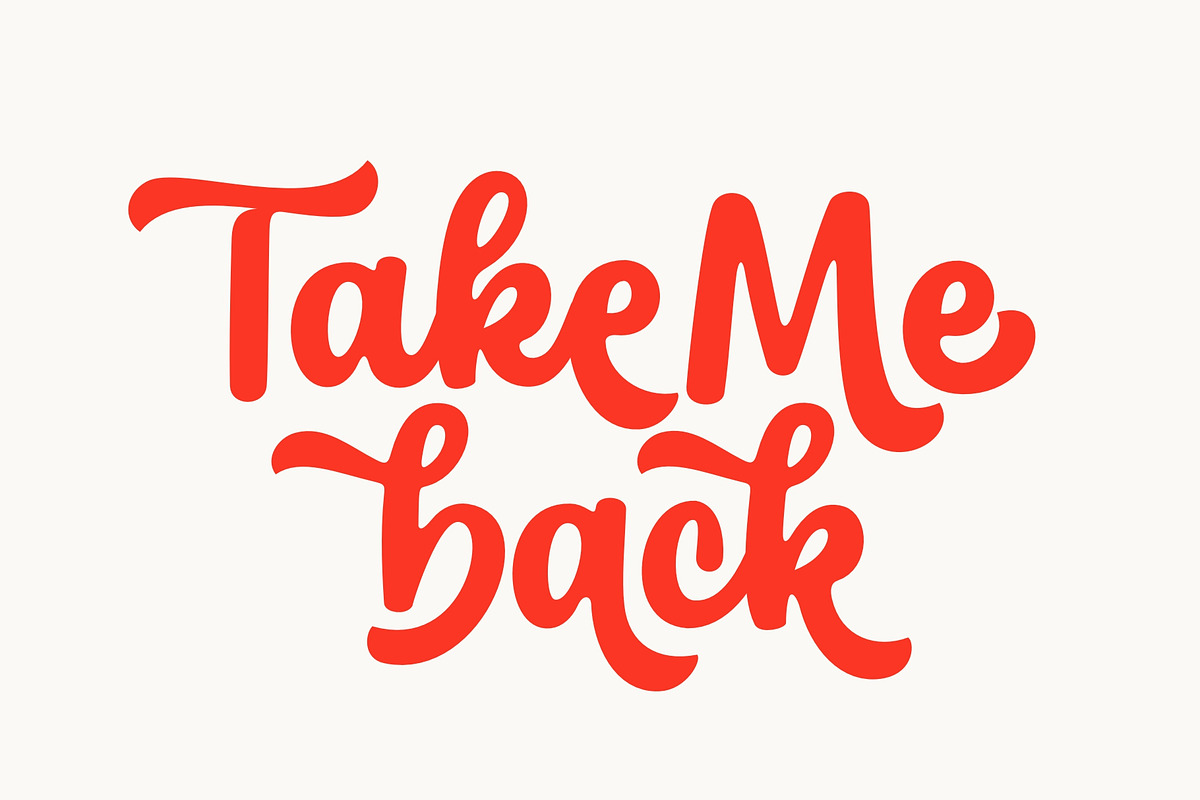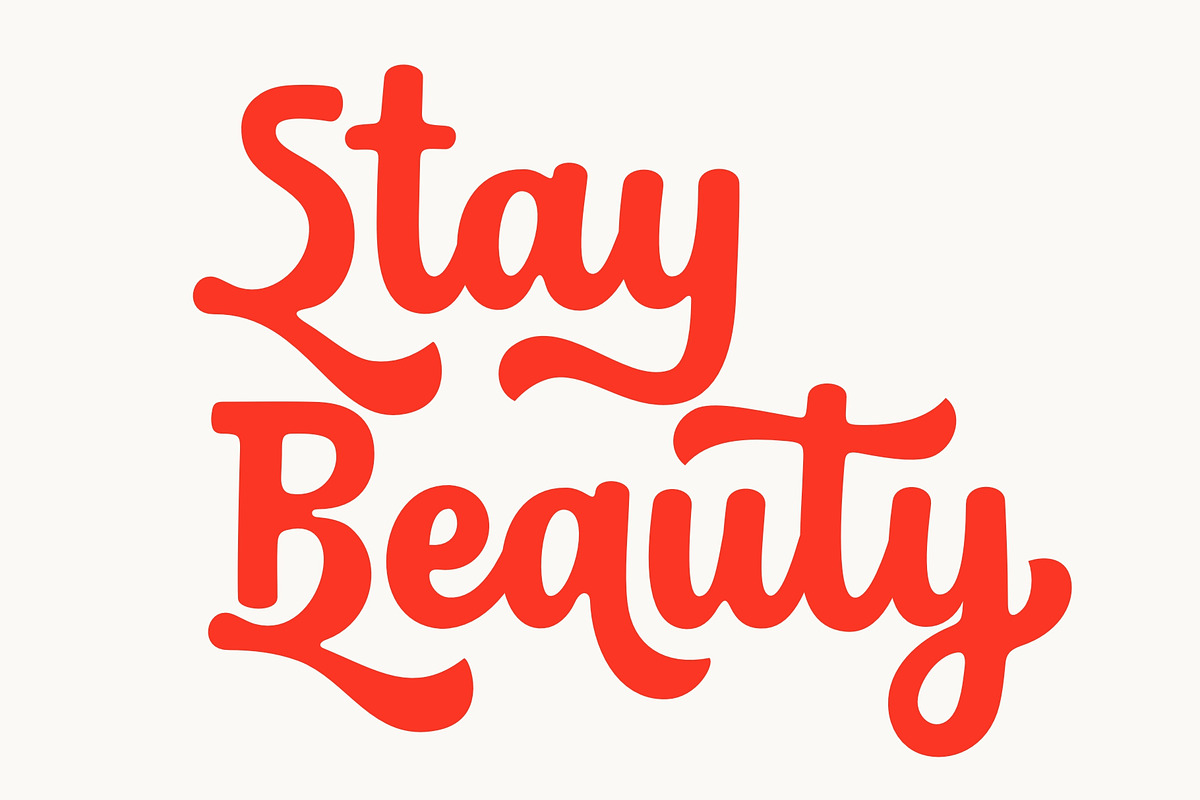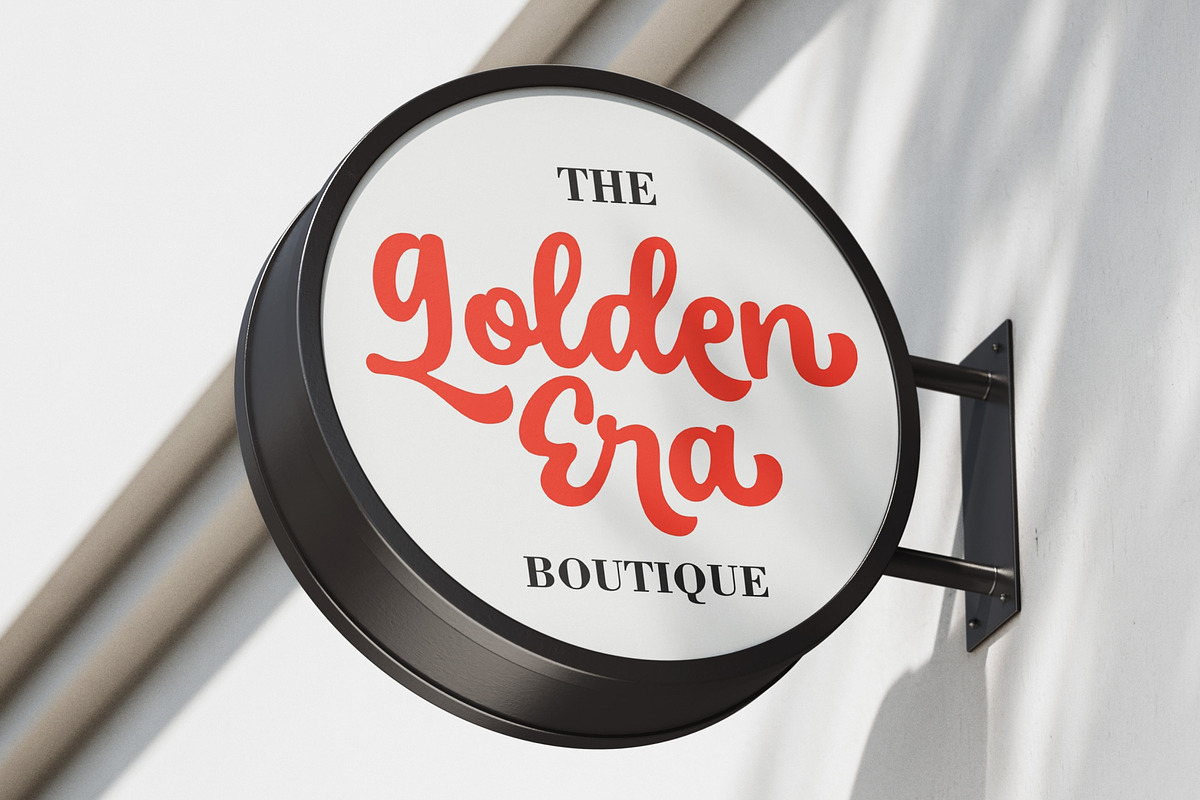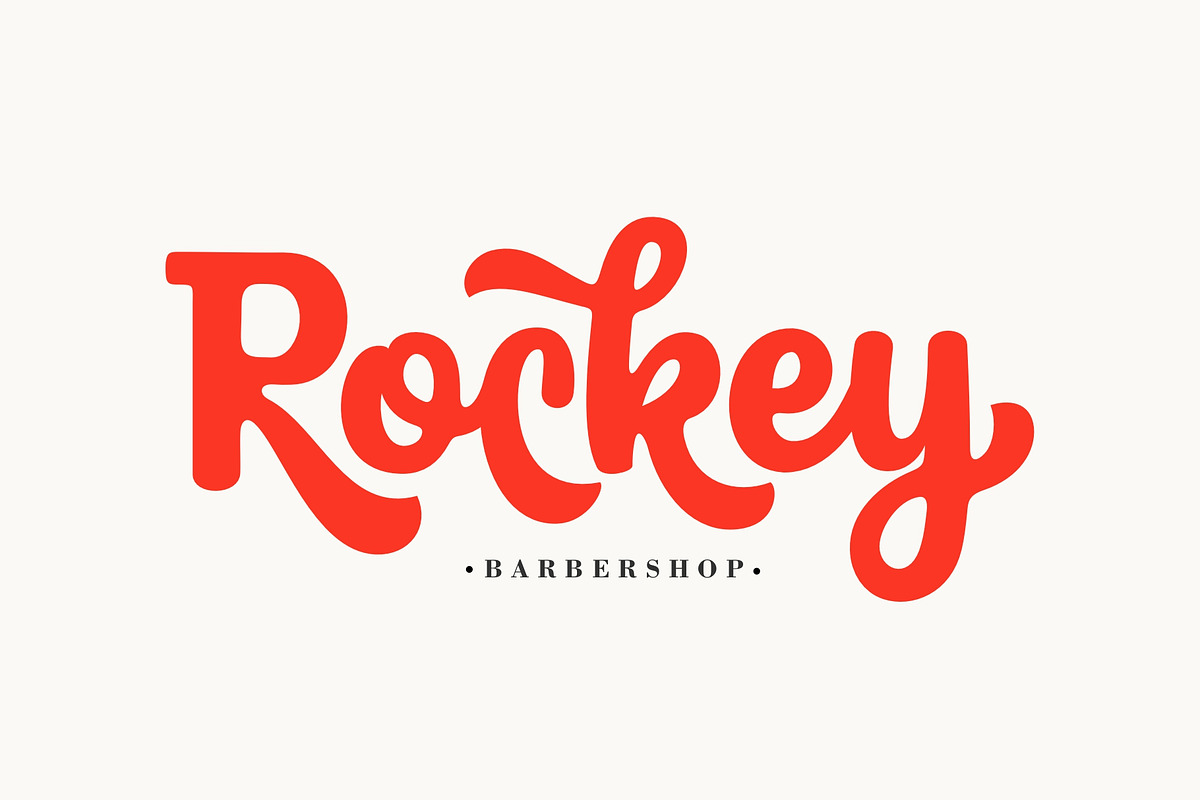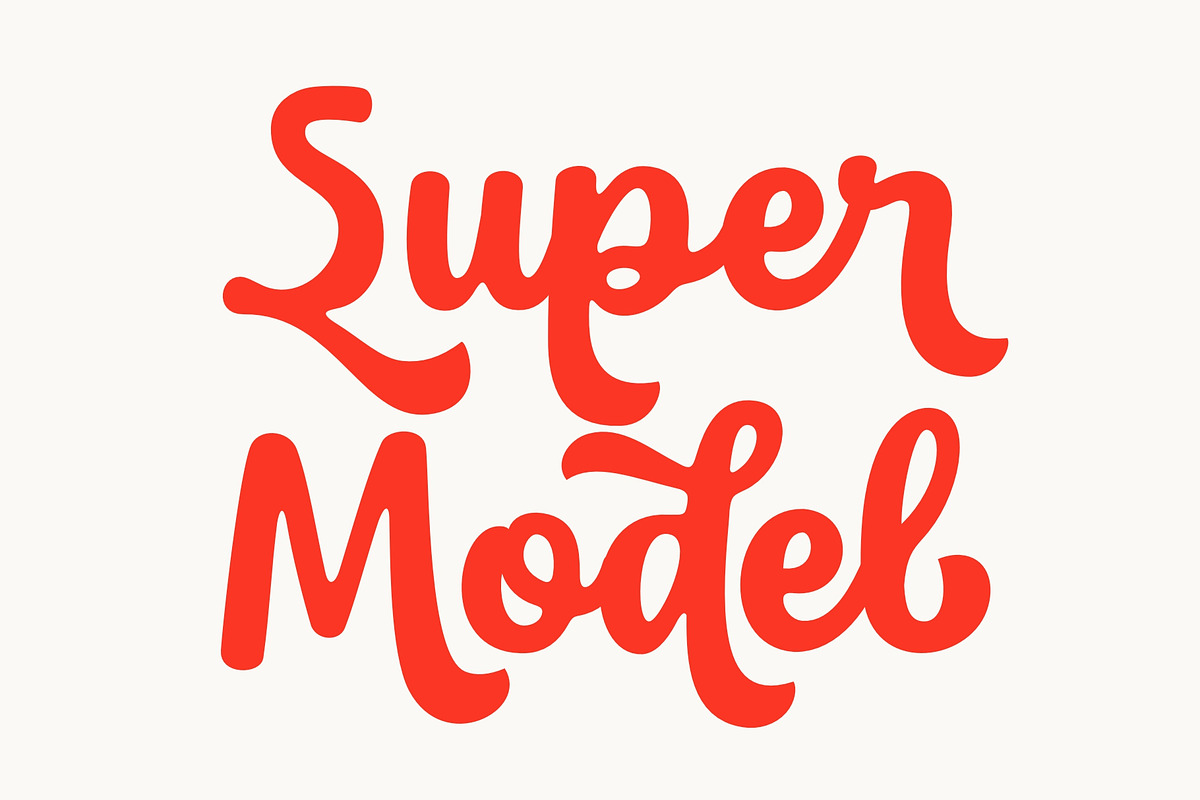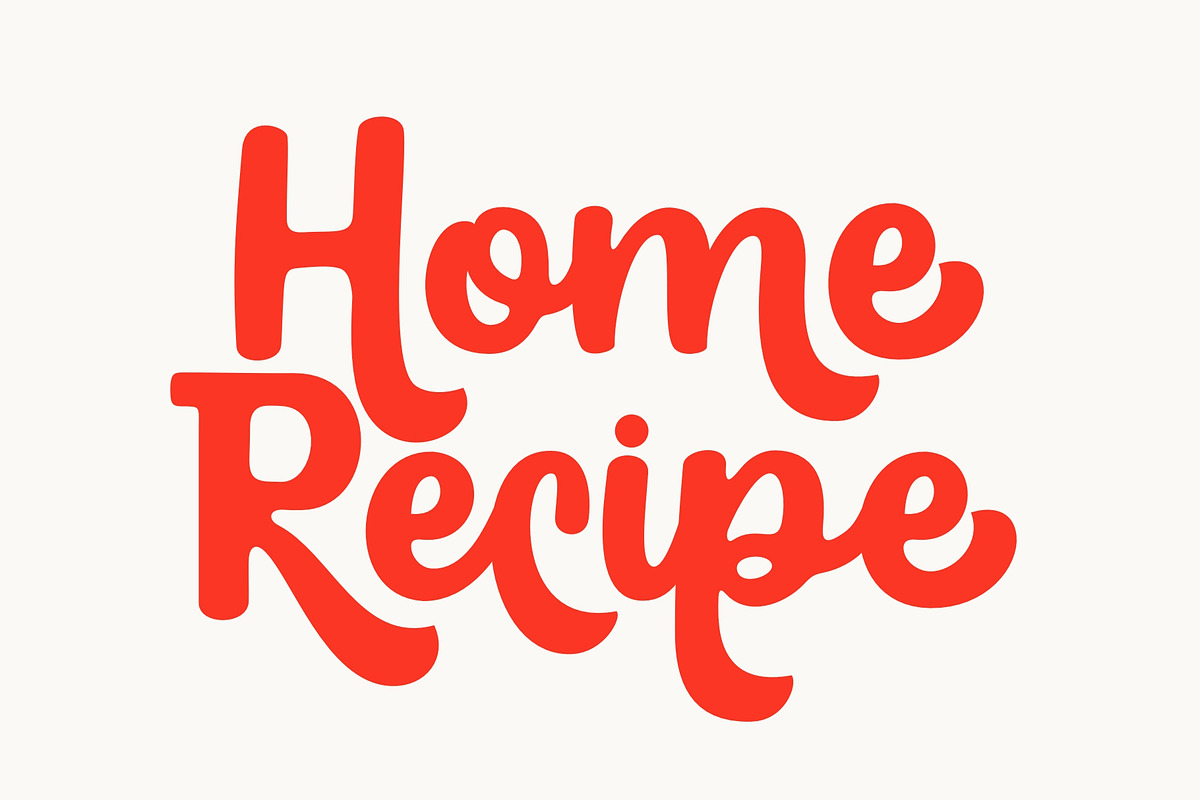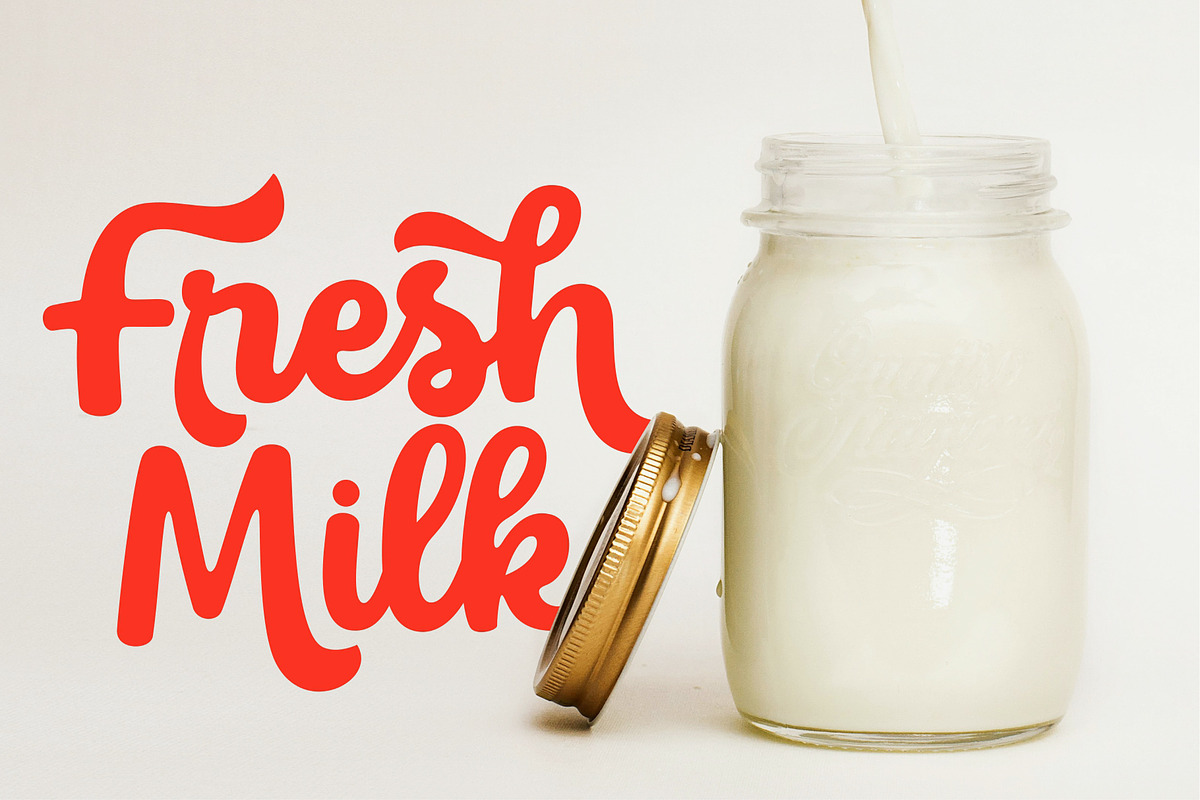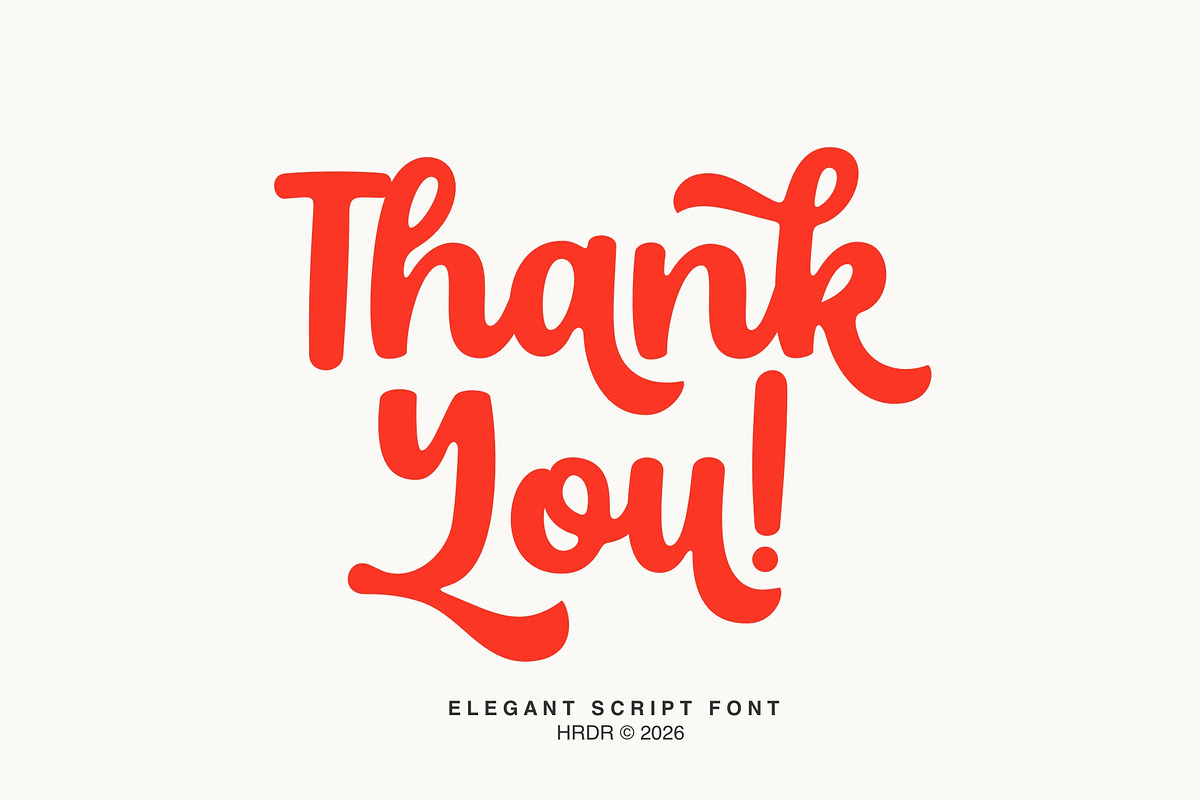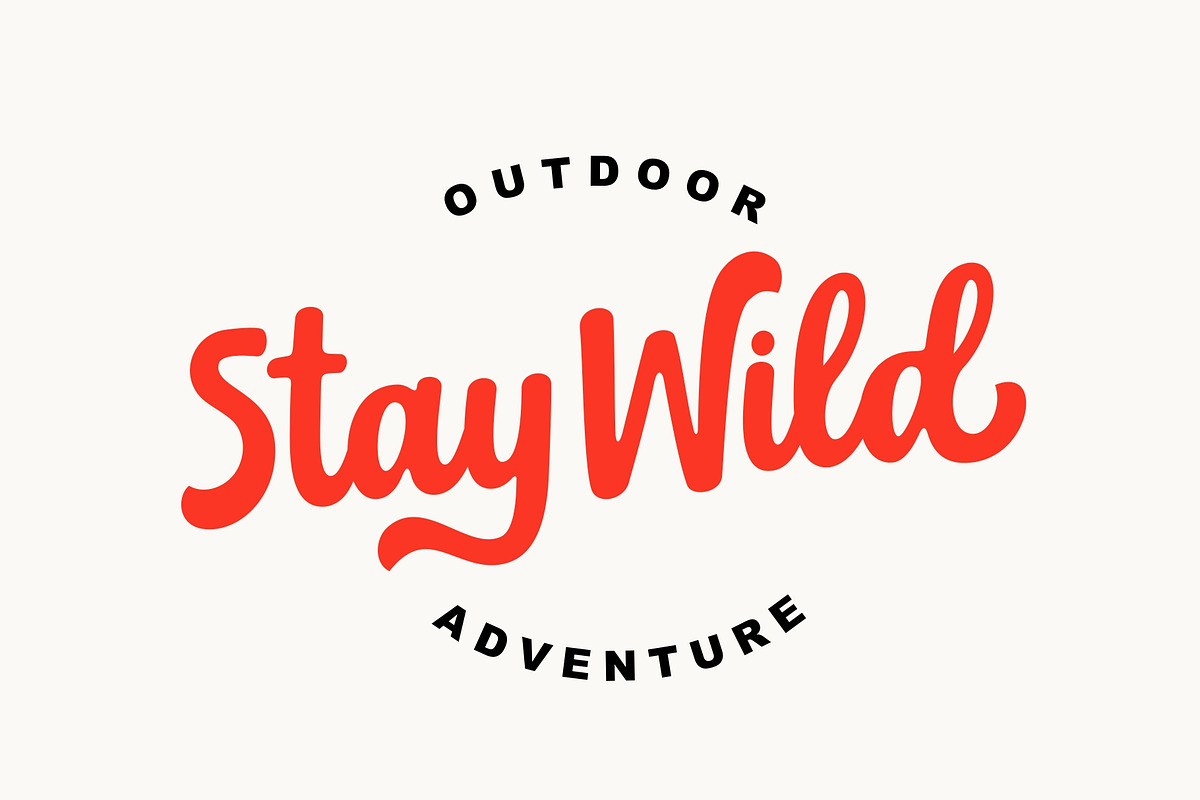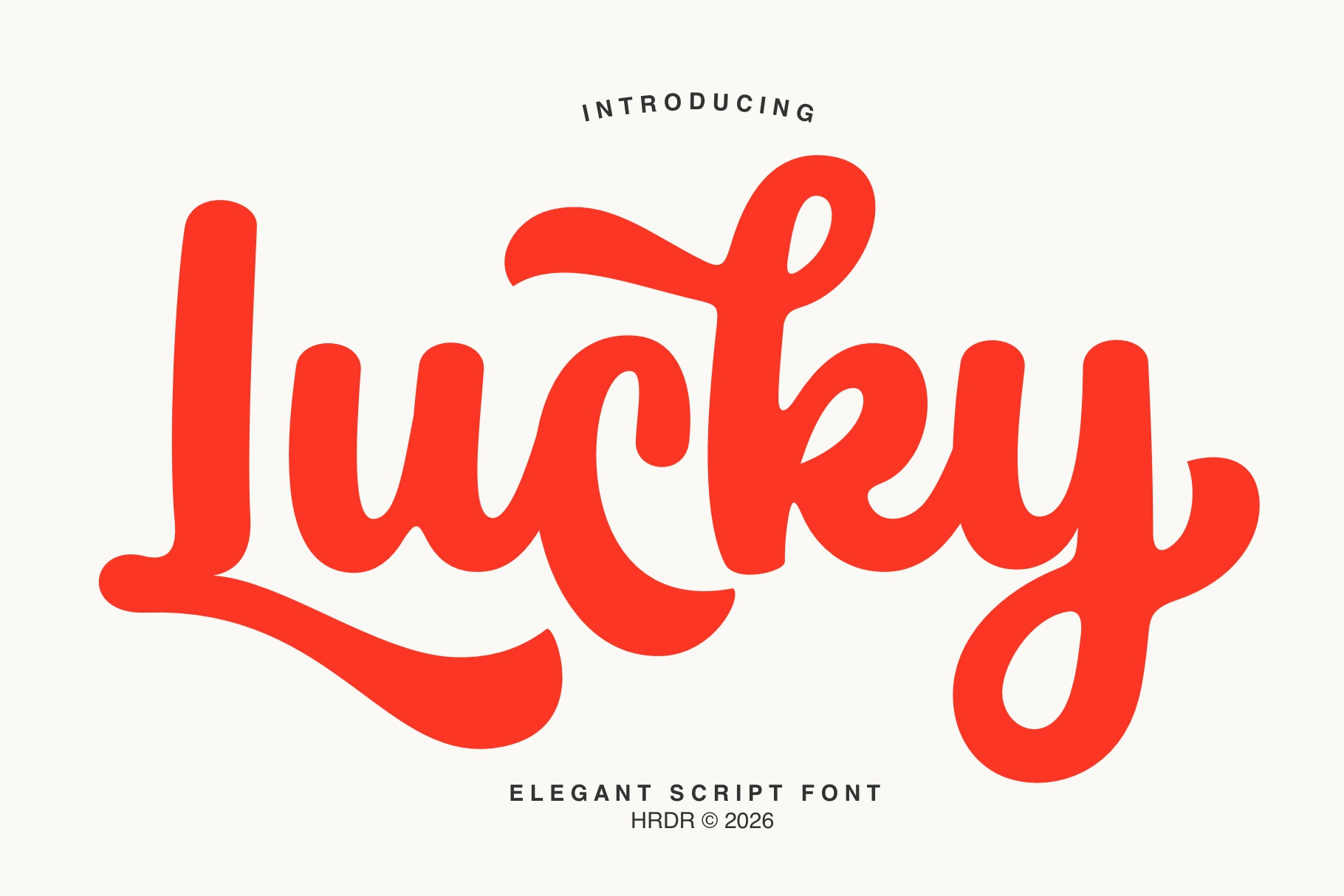
Lucky - Elegant Handwritten Font
Immerse yourself in the refined simplicity of Lucky, a handwritten font that gracefully enhances a breadth of design projects. Its elegant curves bring warmth and intimacy to branding, crafting, invitations, and stationery. Whether intertwined in wedding designs or featured in social media posts, advertisements, and product packaging, Lucky adds a distinctive personal touch, elevating every element it graces.
- Numeric and Multilingual support
- Ligatures for effortless connection
- Stylistic Alternates with Ss01, Ss02 & Ss03 for creativity and customization